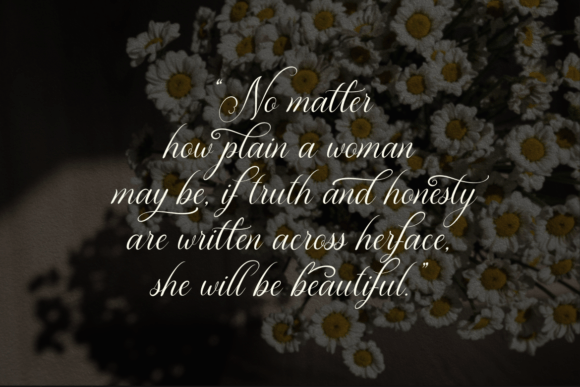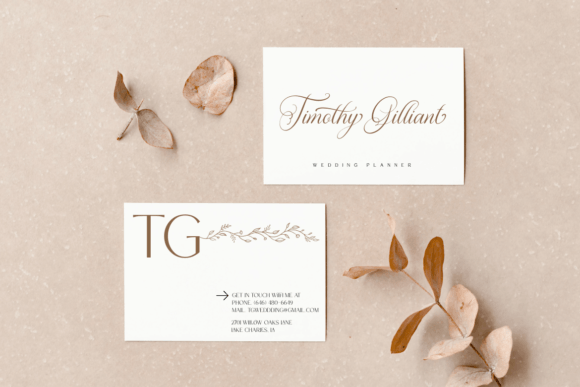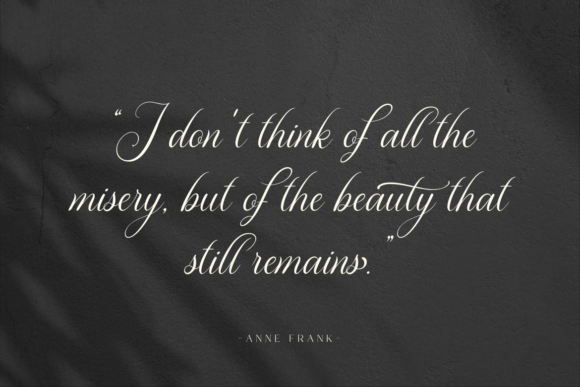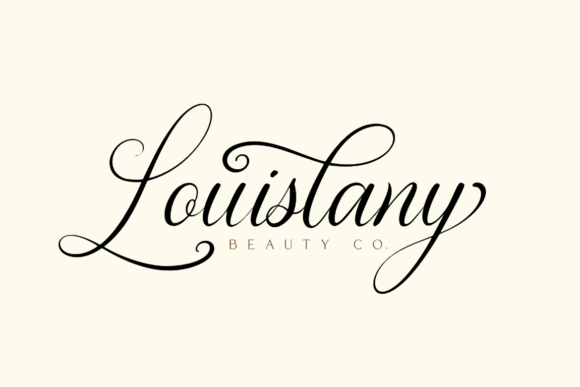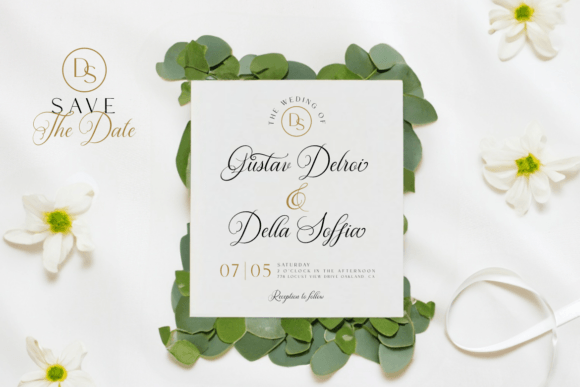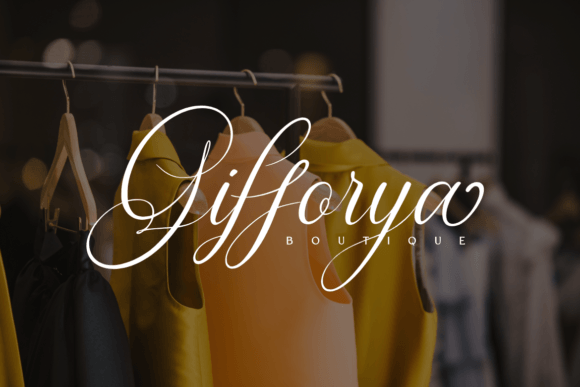
Introduction to Sillysoffia Font
As designers, we’ve all been there – staring at a blank canvas, waiting for that elusive spark of creativity to strike. For me, it was a quiet evening spent browsing through a collection of vintage love letters, their elegant script and delicate flourishes igniting a passion for the perfect font. And that’s exactly when I stumbled upon Sillysoffia Font – a captivating script typeface that embodies the very essence of romance and elegance.
With its abundant variety of alternate characters and multilingual functionality, Sillysoffia Font offers designers a treasure trove of creative possibilities. Whether you’re working on a high-quality design project, or simply seeking a free download to enhance your digital designs, this font is an invaluable resource that’s sure to elevate your work to new heights.
Key Features of Sillysoffia Font
- The Sillysoffia Font is a high-quality design resource ideal for creative projects, offering a unique and playful touch.
- The Sillysoffia Font boasts a large character set, including uppercase and lowercase letters, numbers, and punctuation marks, making it suitable for a wide range of applications.
- Sillysoffia Font is perfect for designers looking for a fun and creative element to add to their designs, making it an excellent choice for projects that require a touch of whimsy.
Honest Review: Sillysoffia Font
I recently came across the Sillysoffia Font and was immediately drawn to its quirky charm. This design resource is perfect for adding a touch of whimsy to any creative project. One of the standout features of the Sillysoffia Font is its transparent background, making it easy to integrate into any design without distraction.
- ✨ Unique and playful font style that adds personality to designs
- ✨ High-quality design that scales well for various applications
- ⚠️ Not ideal for formal or professional projects, as it can come across as too playful
Overall, I’m impressed with the Sillysoffia Font’s creativity and versatility. While it may not be suitable for every design project, it’s a great resource to have in your toolkit for those times when you need to add a little extra personality to your work.
Sillysoffia Font is ideal for creative projects such as posters, flyers, and social media graphics. Use the font to create engaging headings and titles for presentations, documents, and websites. The high-quality design of Sillysoffia Font makes it perfect for any project that requires a unique and eye-catching font.